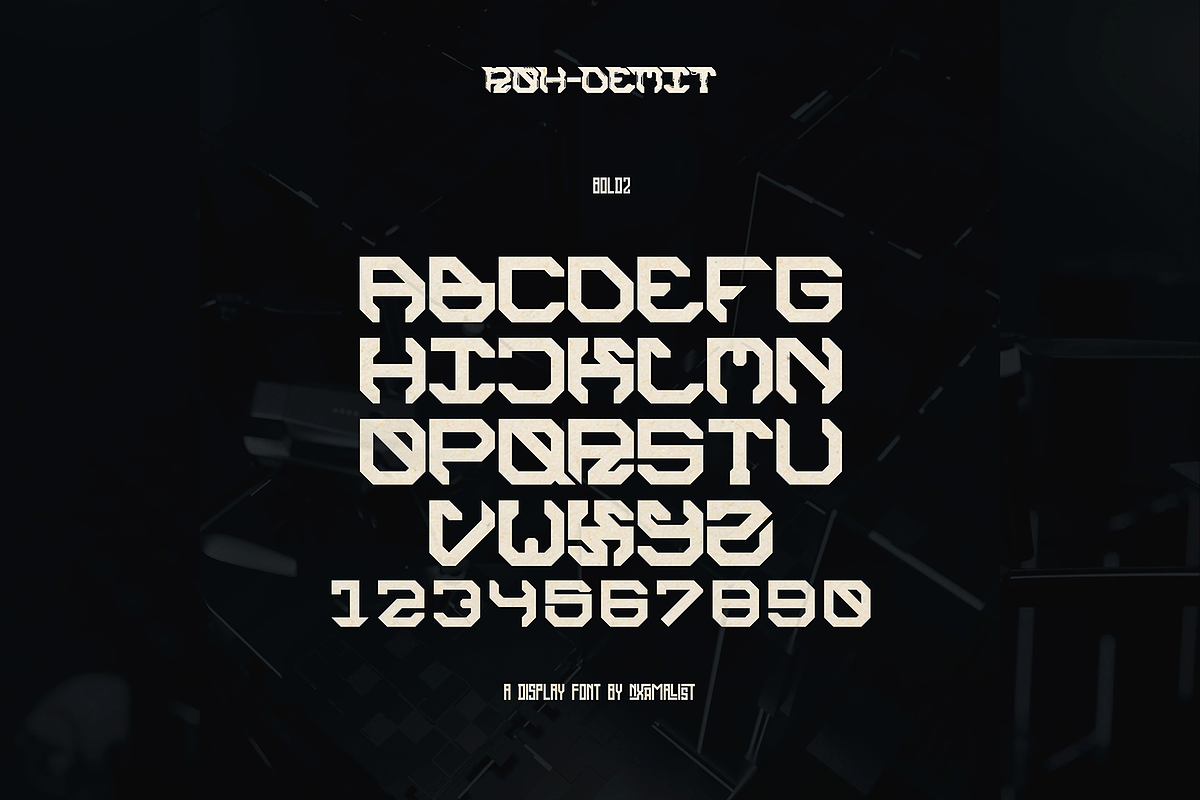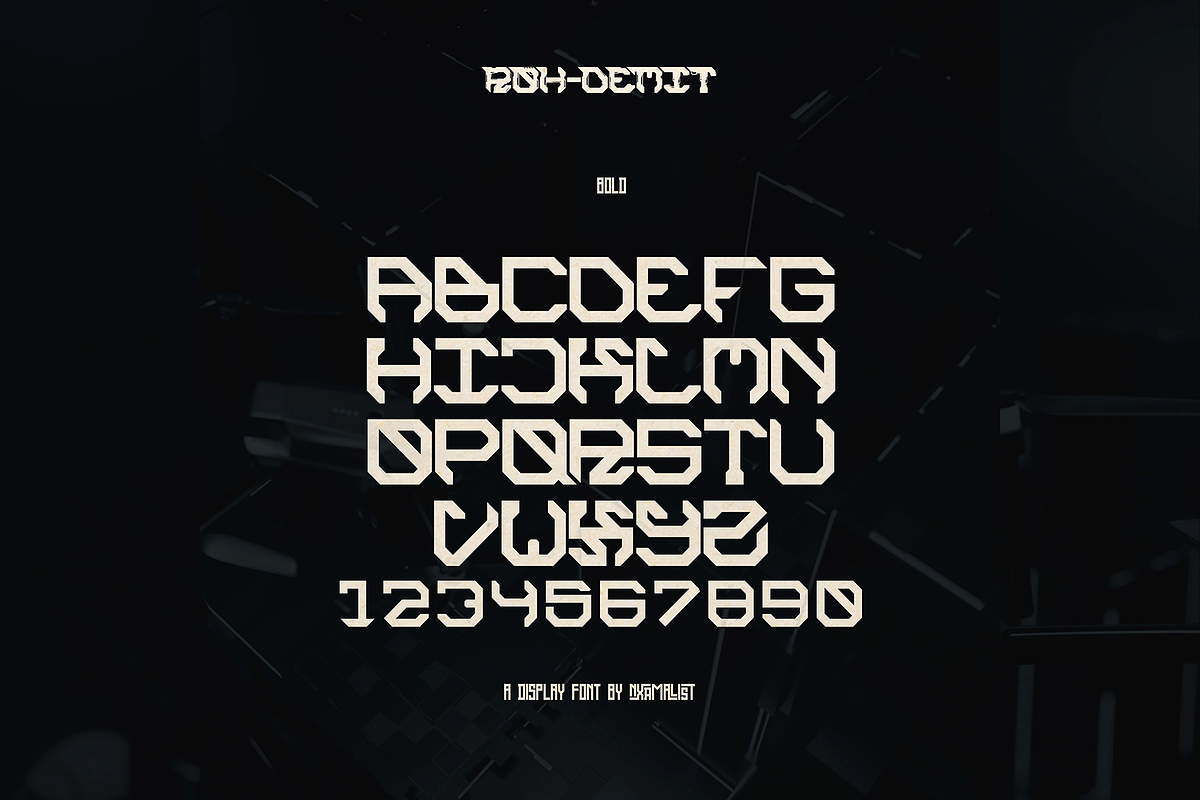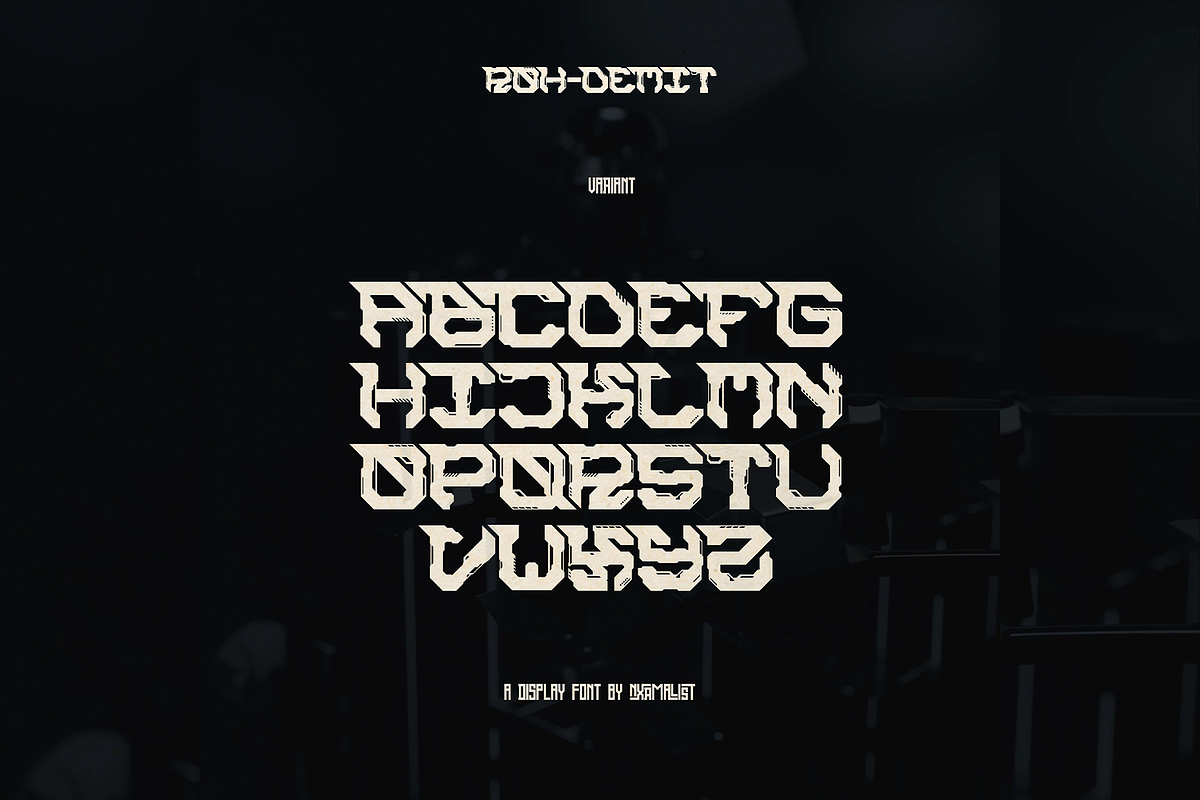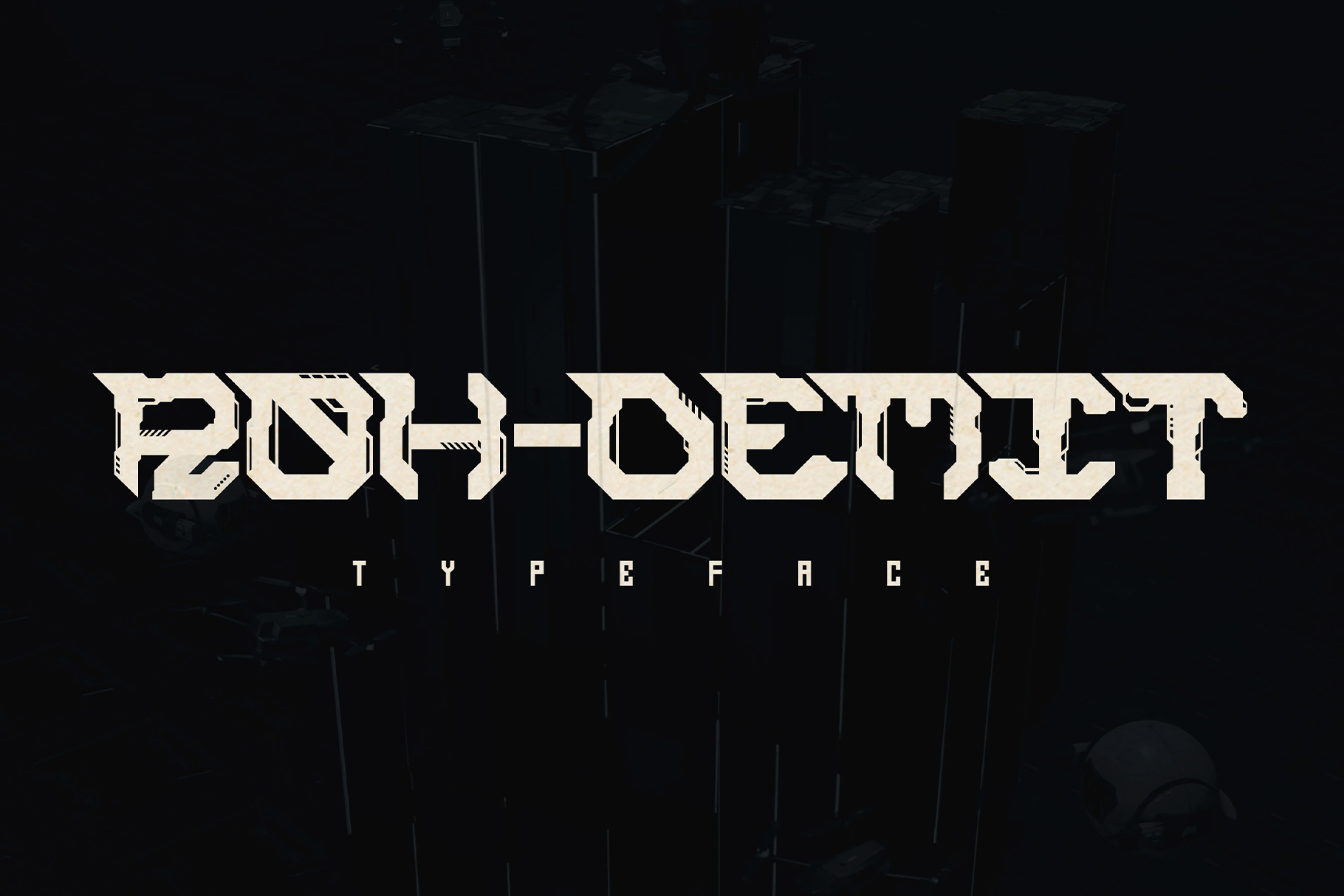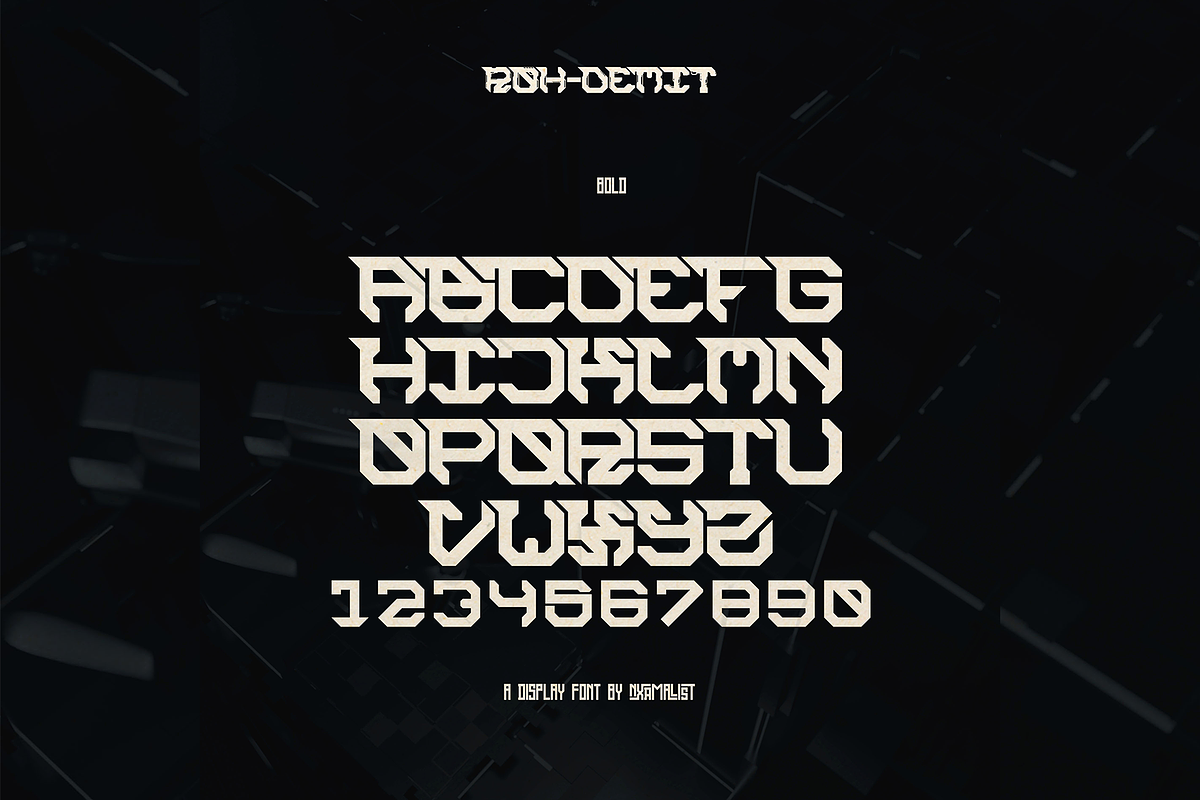
ROH-DEMIT Typeface // Display Font
ROH-DEMIT Typeface is a display font made by Indonesian designer NXRMALIST. It is a futuristic font that comes in 5 Variation.